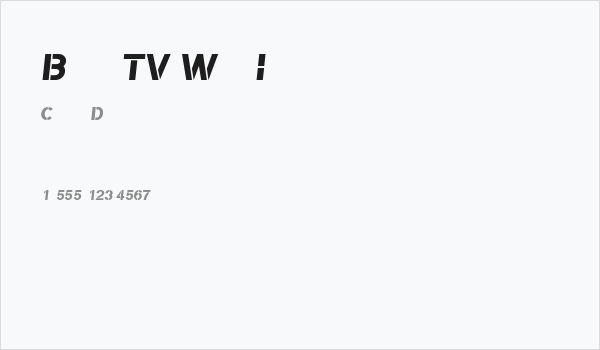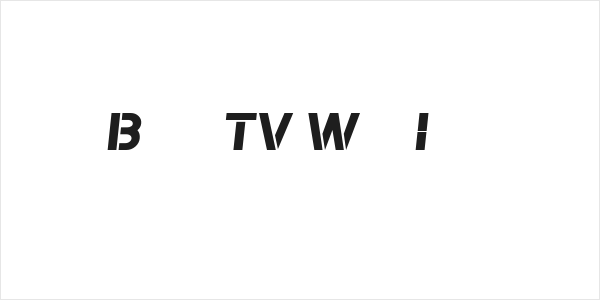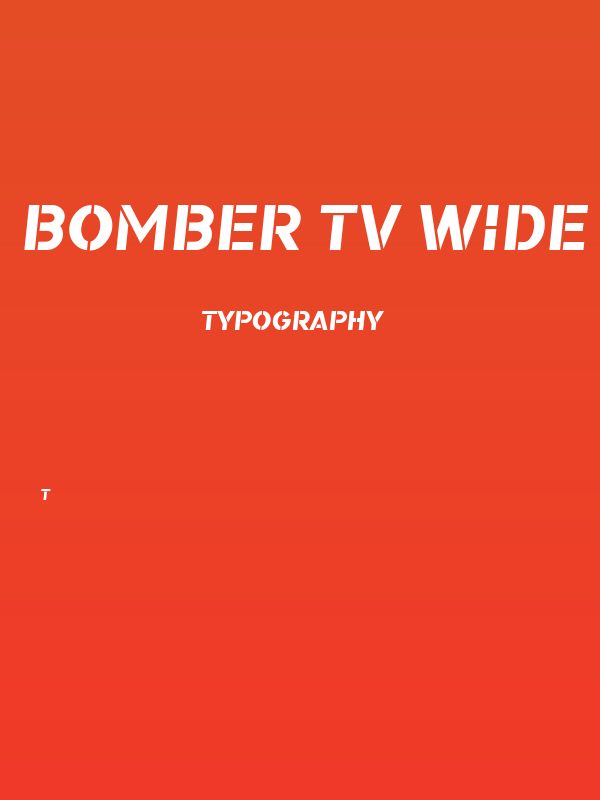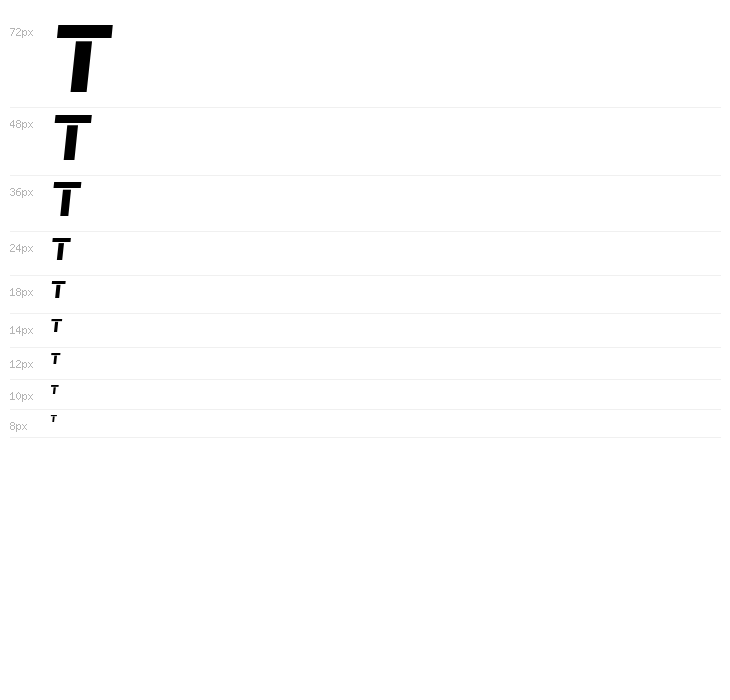
Bomber TV Wide Italic Font
Bomber TV Wide Italic Description
This font features a bold and striking design, characterized by its wide and italicized letterforms. Each character is crafted with a unique stencil-like appearance, where parts of the letters are intentionally cut out, creating a dynamic and edgy look. The uppercase letters are particularly prominent, with sharp angles and a sense of movement that suggests speed and modernity. The numbers follow the same stylistic approach, ensuring consistency across all characters. This font is ideal for projects that require a strong visual impact and a contemporary feel.
| Proposed Projects | Ideal for branding, posters, sports team logos, and any project needing a bold, modern aesthetic. |